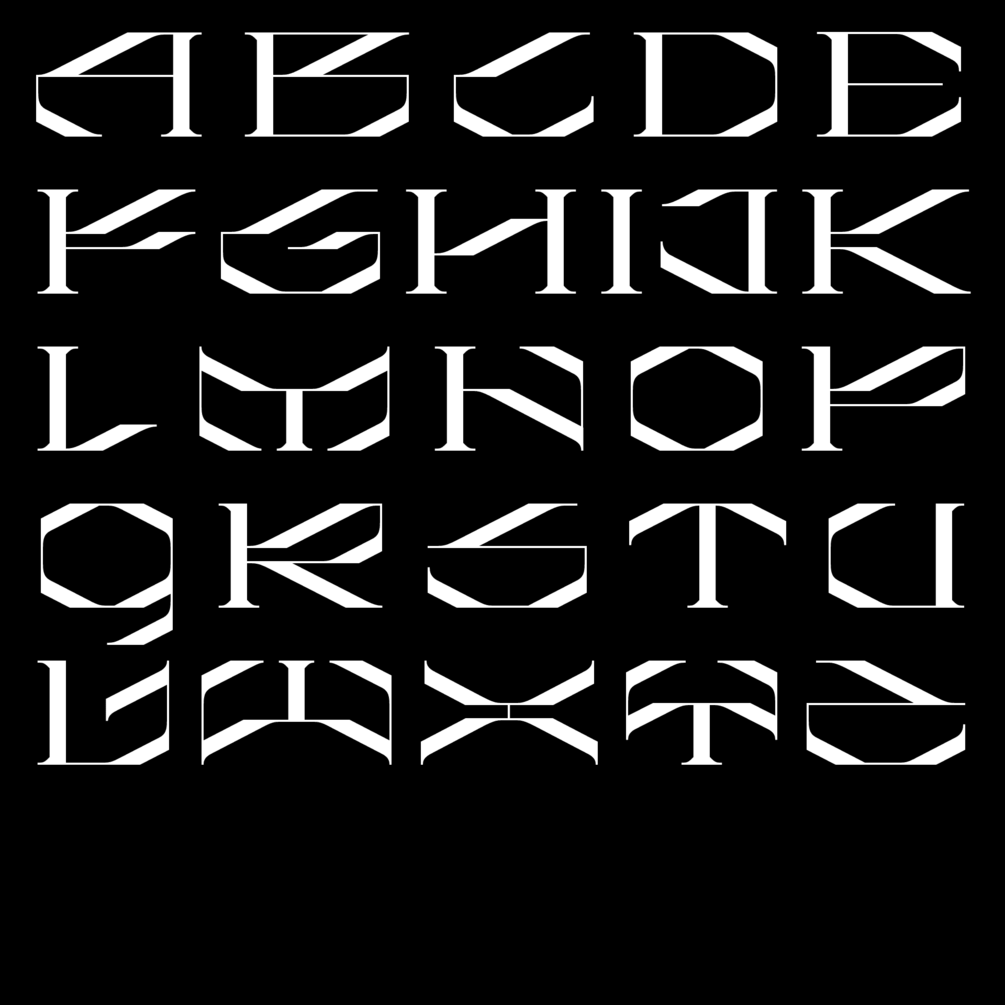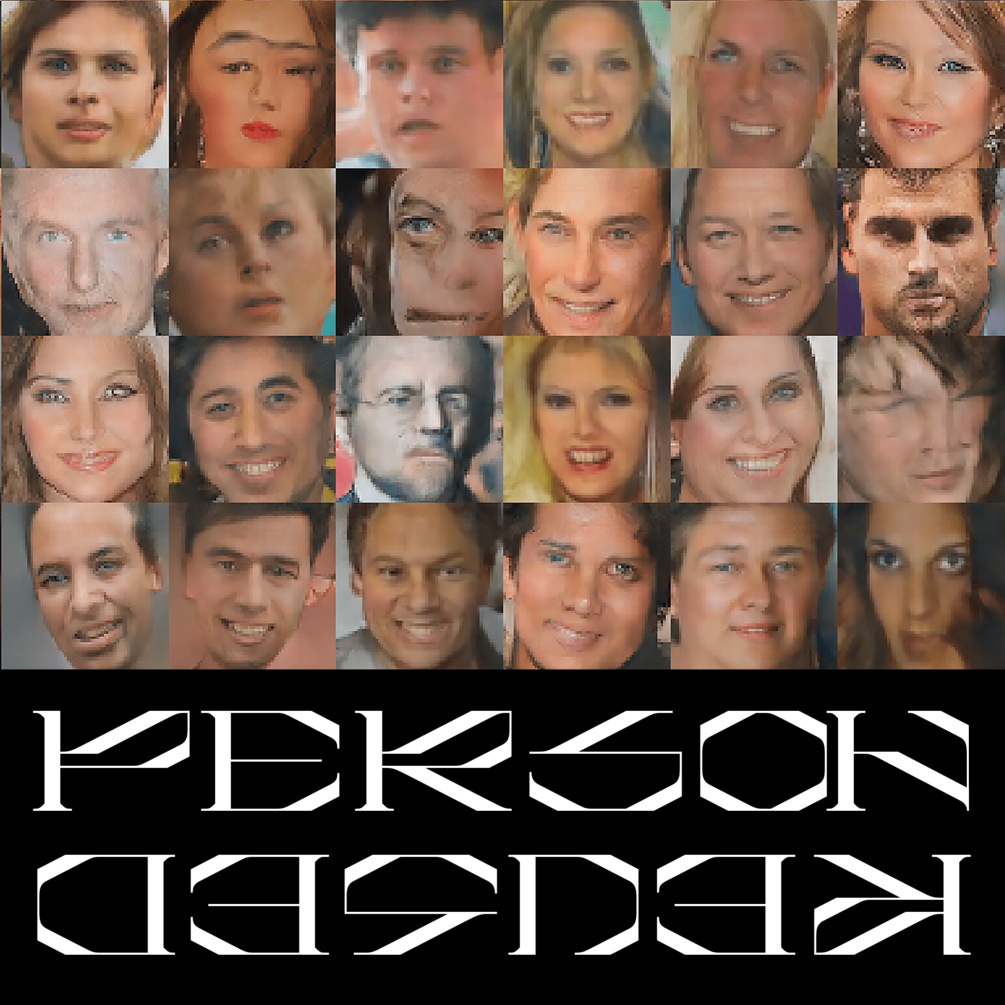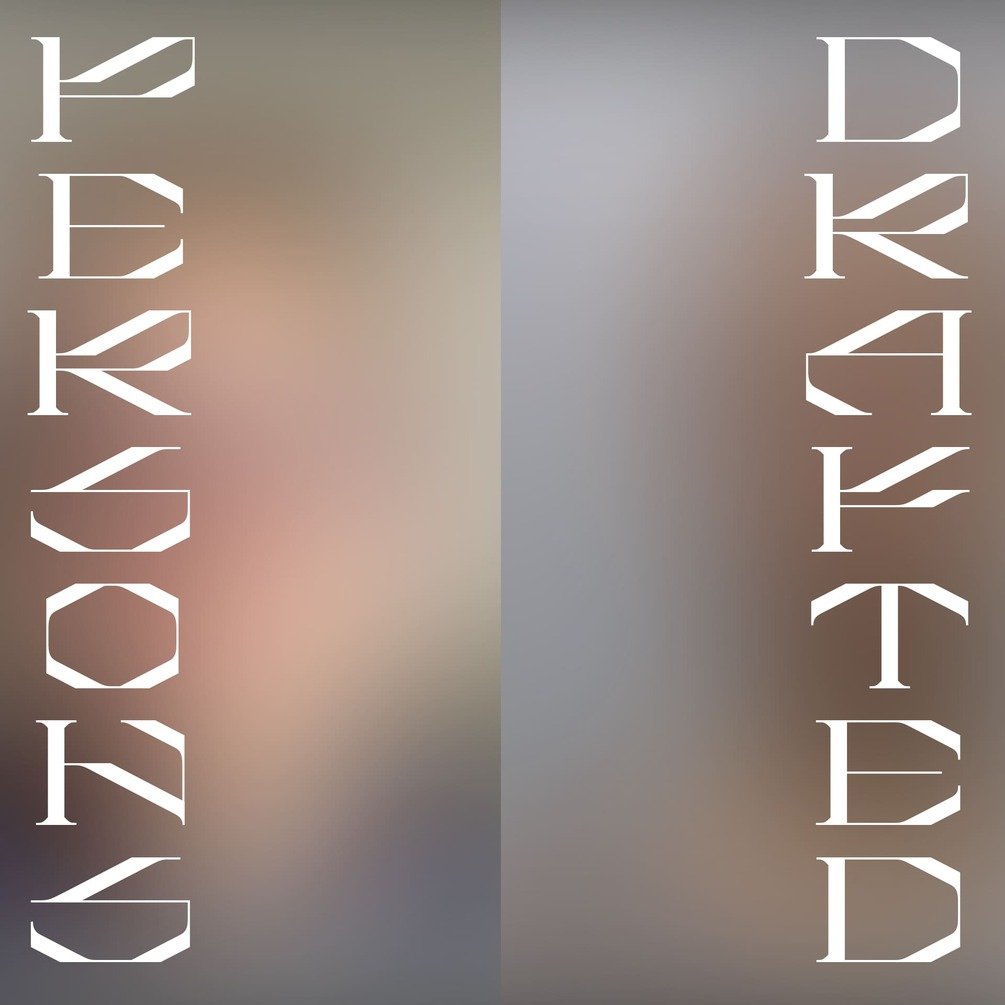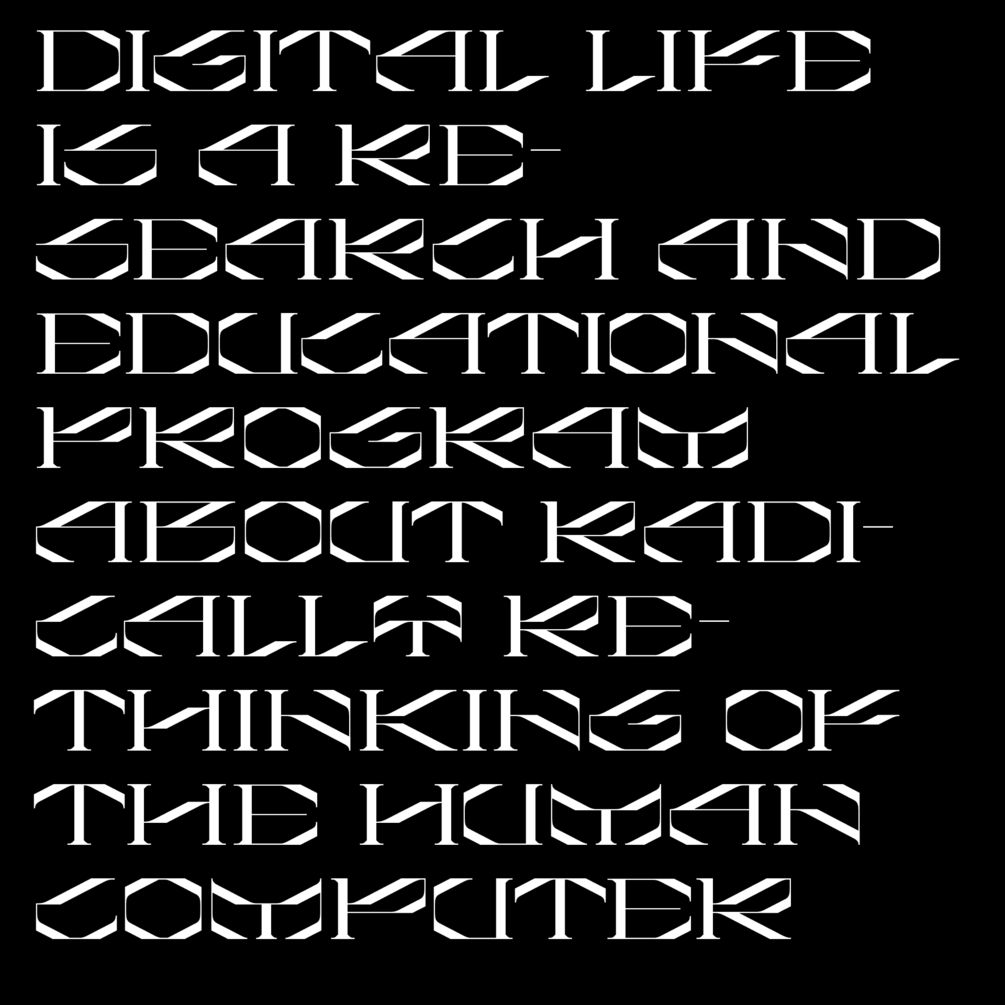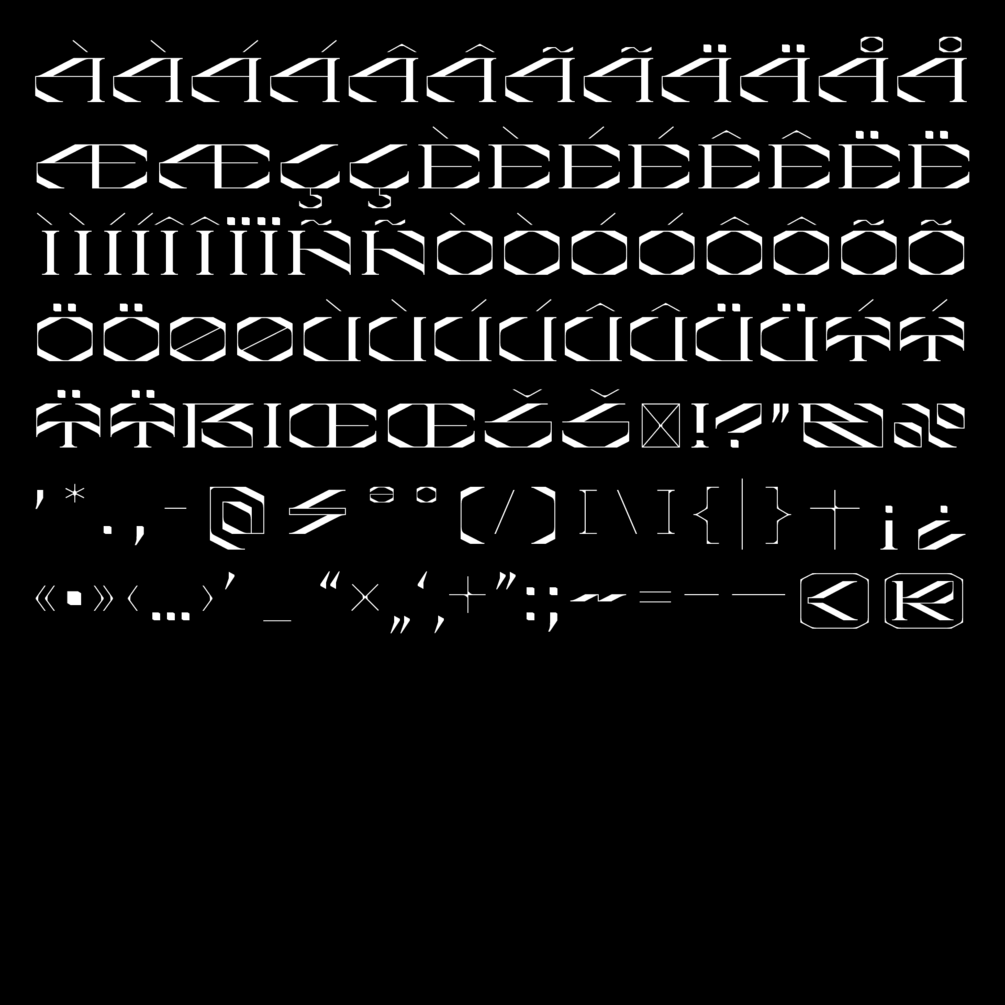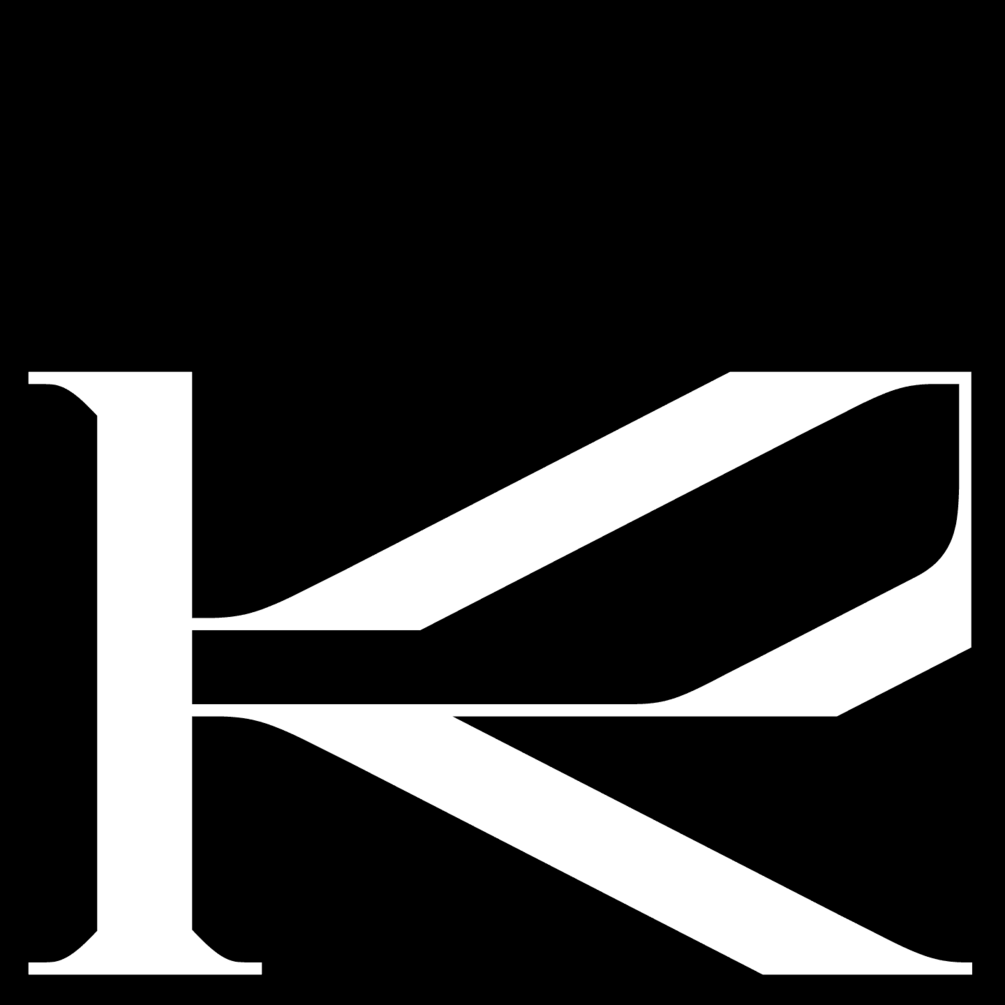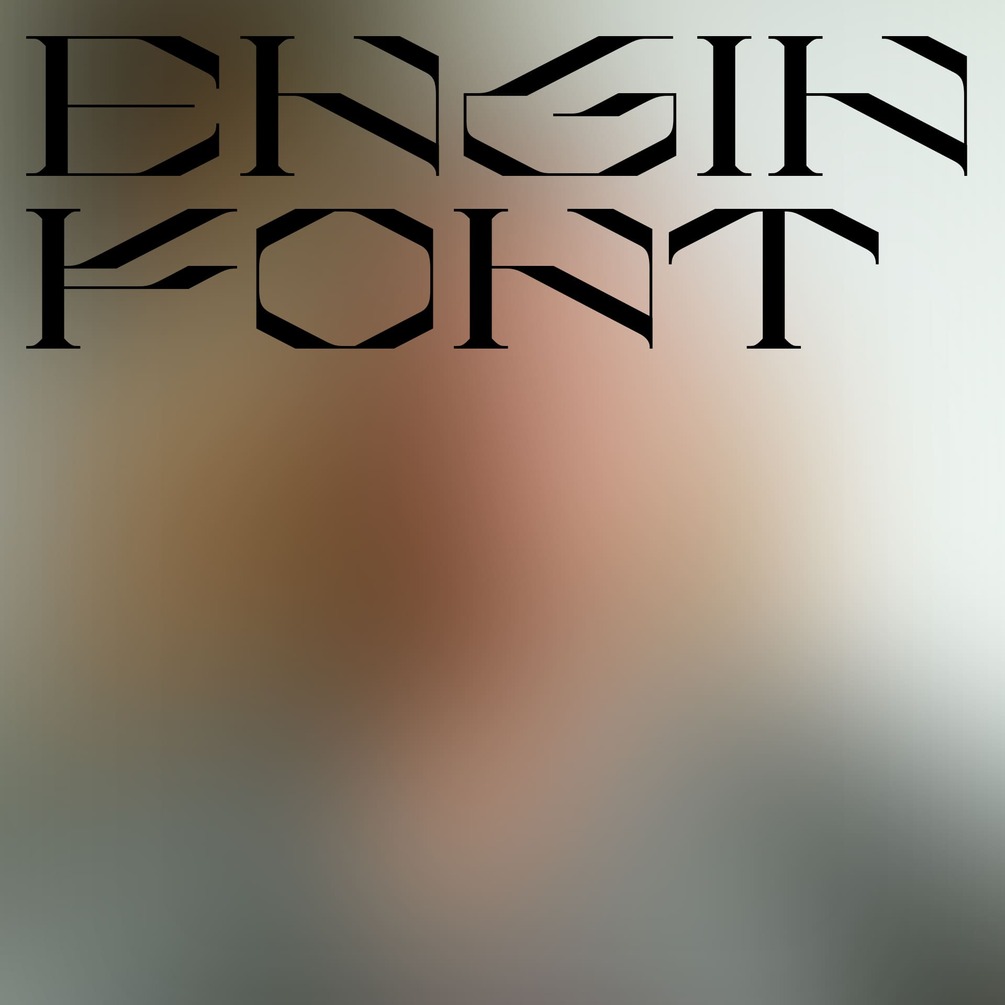
"Engin" font
Engin — I don't know what type of font this font belongs to, humanity has not yet come up with it. It has long, non-rational diagonals, non-standard graphemes of letters. It feels like the font was created by a machine or artificial intelligence, and not by a person. The graphic logic is simple — thin vertical and horizontal strokes and thick diagonals. The font also combines grotesque and antique elements, such as serifs.